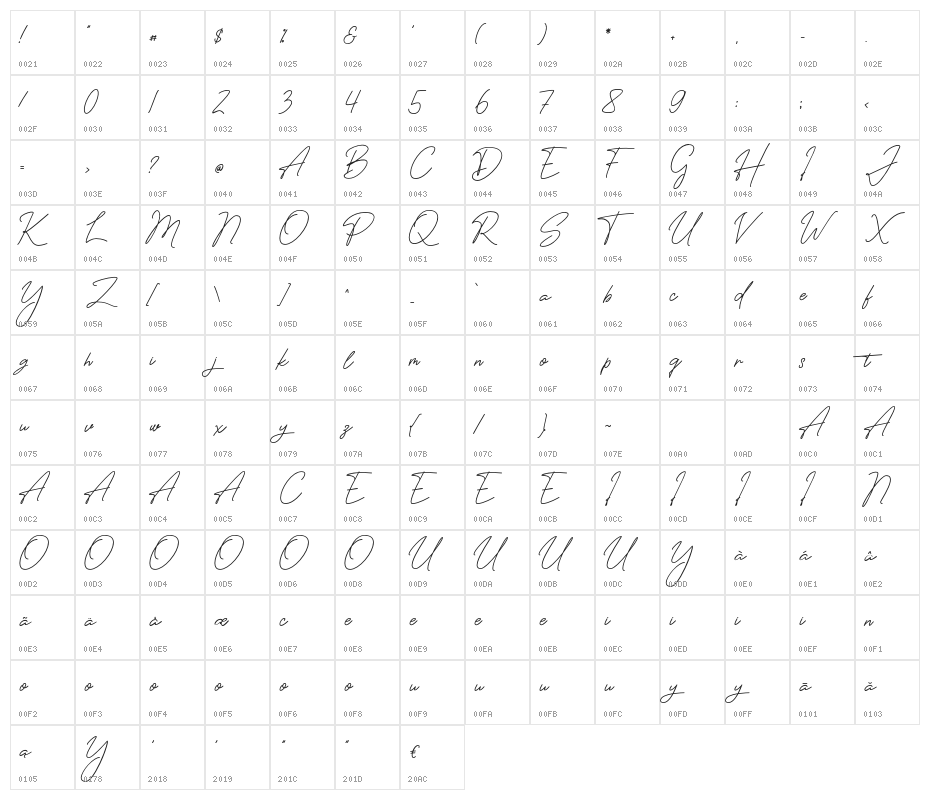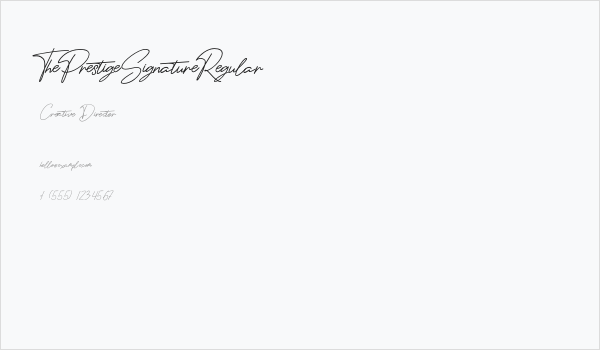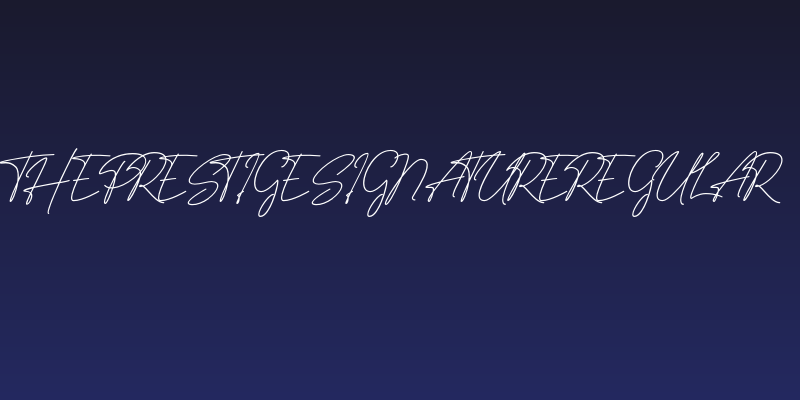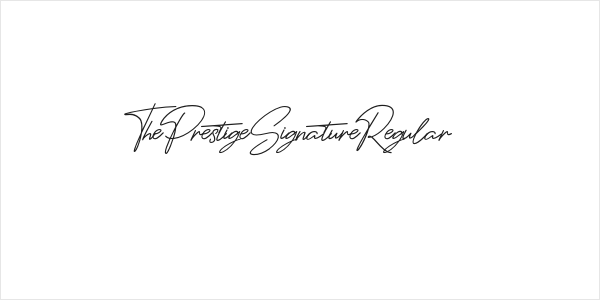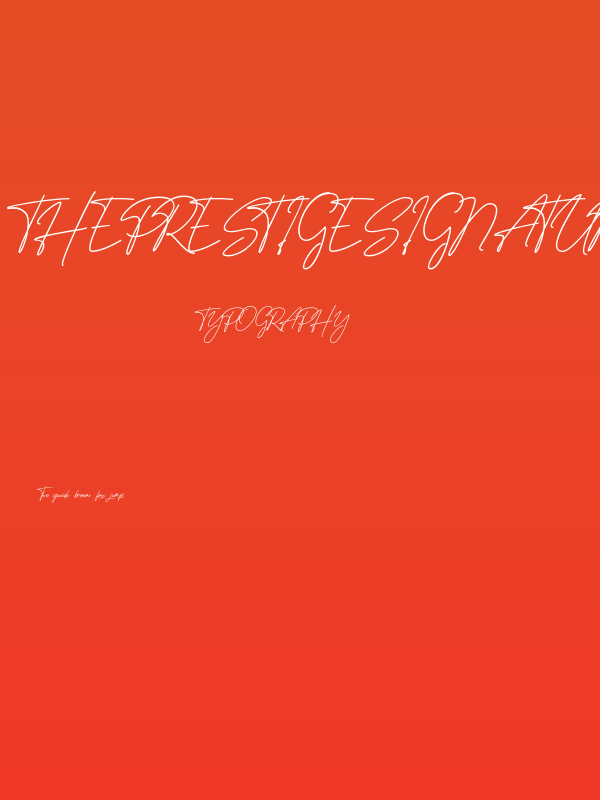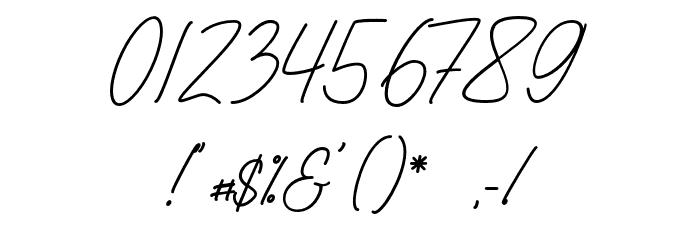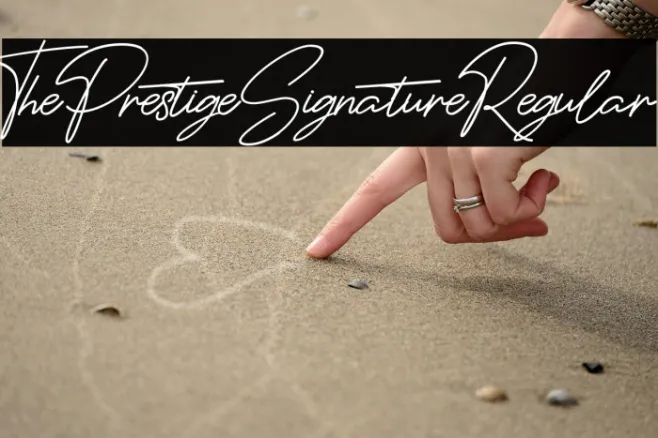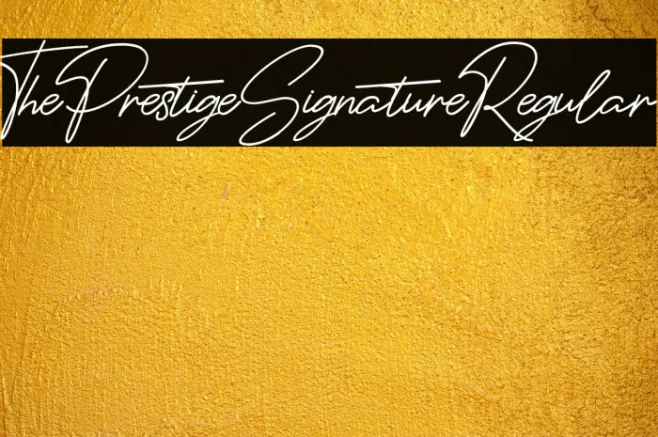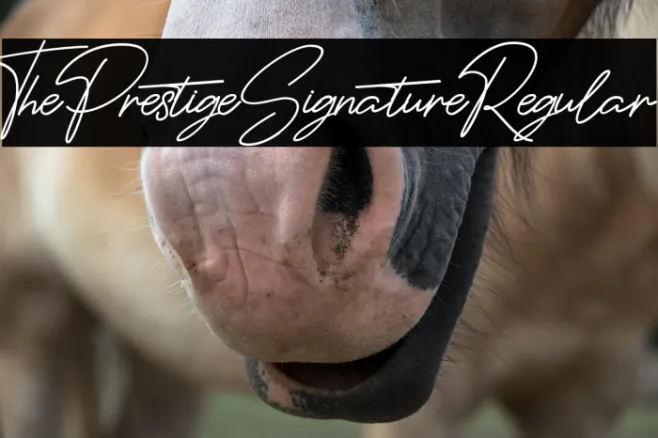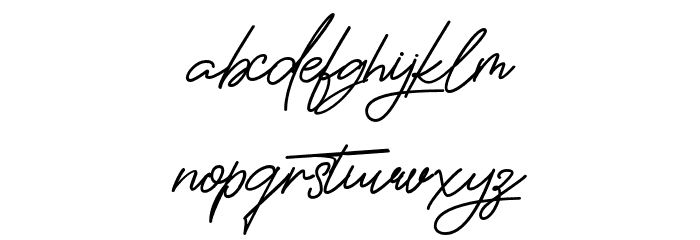
ThePrestigeSignatureRegular Font
ThePrestigeSignatureRegular Description
This elegant script font exudes a sense of sophistication and fluidity, characterized by its flowing, cursive strokes that mimic the natural movement of handwriting. The letters are gracefully connected, creating a seamless and harmonious appearance. The font features a delicate balance between thick and thin lines, adding a touch of refinement and elegance. Its overall aesthetic is both modern and timeless, making it suitable for a variety of design applications. The numerals and special characters maintain the same fluid style, ensuring consistency across all elements.
| Overall Style | Elegant, Modern |
| Proposed Projects | Ideal for wedding invitations, elegant branding, personal stationery, and high-end product packaging. |